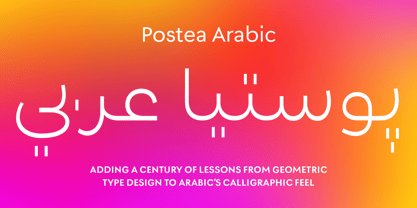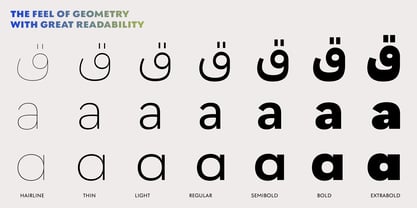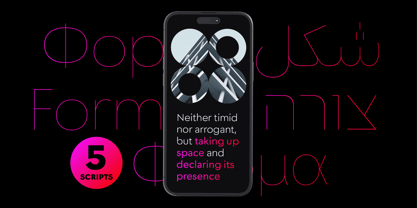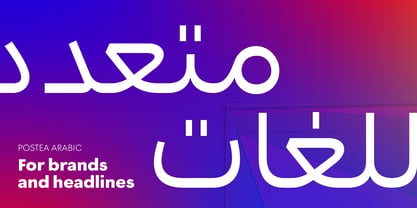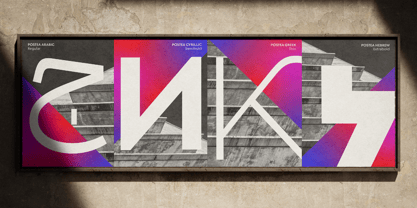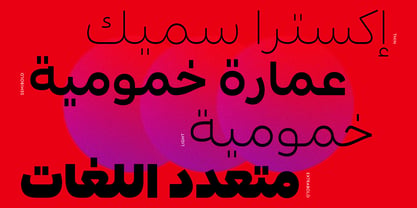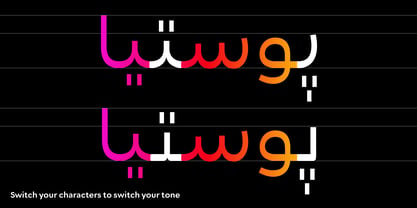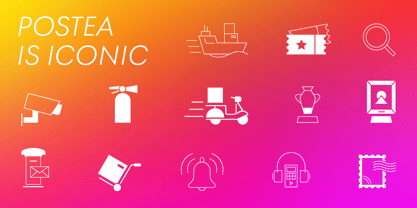
The Postea font family is Veronika Burian and Jose Scaglione’s take on geometric typefaces, reshaped as Postea Arabic by Azza Alameddine with the right attributes for setting paragraphs and headings, and perfect for branding and text use. The classic curves and purposeful details keep its individuality intact while allowing it to fit an incredible range of multiscript design needs. Because of these qualities, Postea Arabic makes normal reading in paragraphs a cinch and your branding memorable.
Postea Arabic’s main goal was to match the colour and rhythm of the family’s other scripts for a unified look amidst multiscript typography. A second goal was to provide a style for modern Arabic typography which combines geometric with handmade structures for a readable, familiar, and still novel family. Font users get all the benefits of the new with the comfort of the expected.
Compared to midcentury attributes of restraint and a sparse appearance, Postea Arabic’s deliberate play between character widths injects liveliness and distinction into its personality. Another nice surprise awaits: spacing for the Hairline weight is tighter for optimal use in large headings and titles, while the regular weights have the slightly looser spacing readers require for text.
Postea Arabic is opinionated and has modern stylistic sets with softer, specially-designed alternate characters. Wallpaper-worthy geometric symbols, arrows, and ornaments are packed into SS01 and SS09. SS07 is reserved for Urdu variants. For the ultimate in customisation, the second and third stylistic sets are where geometric and typographic alternates are found.
Postea Arabic’s seven upright styles or one variable font are accompanied by an all-new family of icons in three weights, for which we developed a new, easy activation feature. Simply bookend the desired icon name with colons (:arrowUp: :firstAid: :aid: :chargingStation:), making sure to capitalise each word after the first word, then select it and activate SS10. Icons include wayfinding, social interface, and sanitary precautions like face masks, thermometers, hand washing, and much more.
Postea Arabic is resilient in the number of ways the family can be used, and its recognisable characters make it a prime selection for branding, signage, corporate typefaces, and magazines. The entire five-script Postea family (Arabic, Cyrillic, Greek, Hebrew, and Latin) brings simplicity and impact together nicely, invoking a balance between a constructed and human feel. Beginning with the design virtues of simplicity and restraint, Postea Arabic is the rational response for text — a lyrical take on geometric sans serifs.